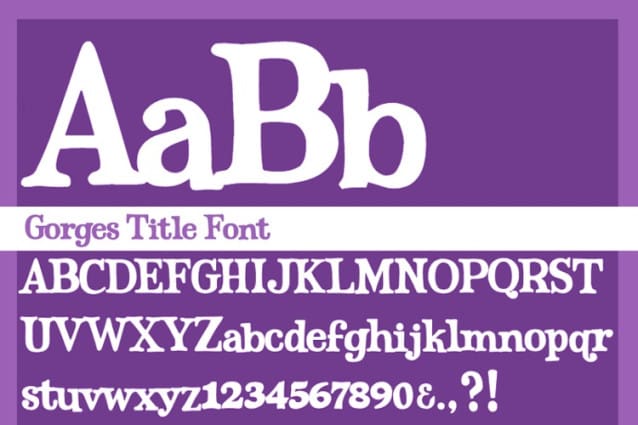
MM Gorges Title Font, A funky, serif display font developed for the title of a comic. Based on the type styles of old Dr. Seuss books like “Put Me in the Zoo”
MM Gorges Title Font
| Designer Name: | Mac Myers |